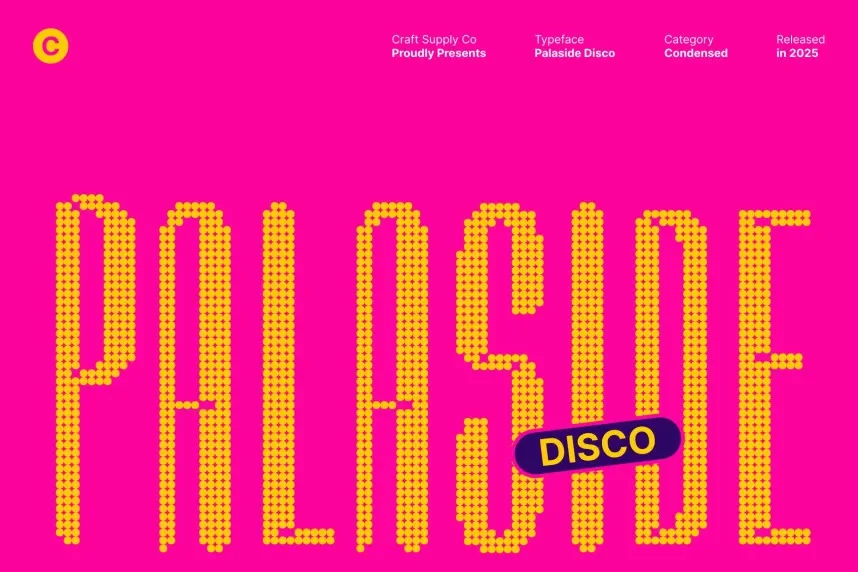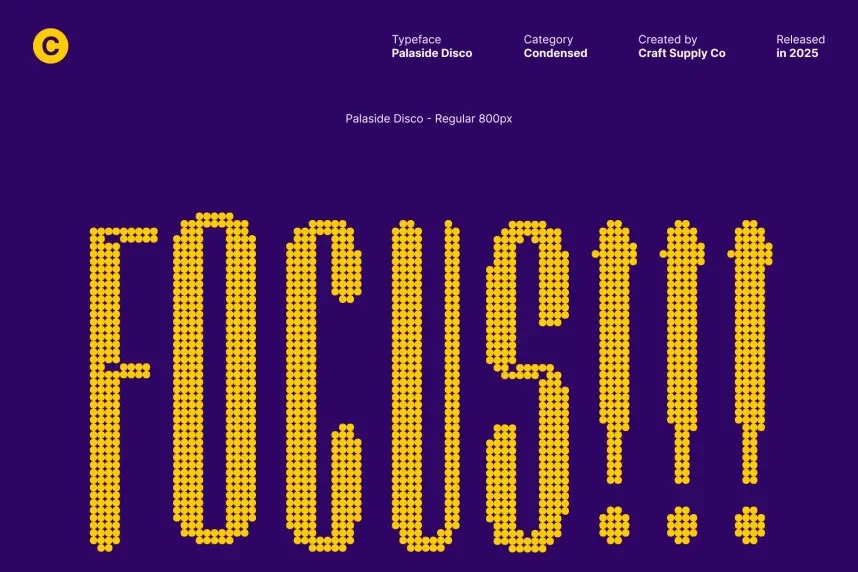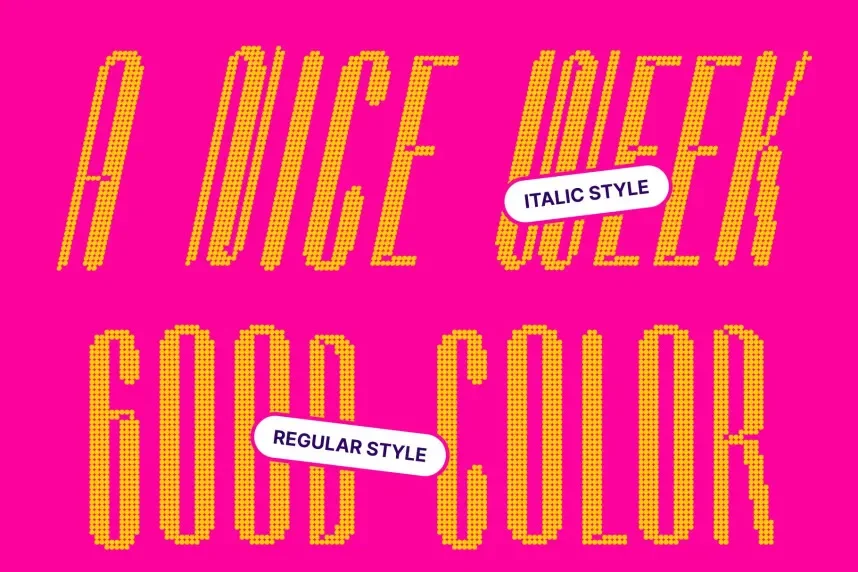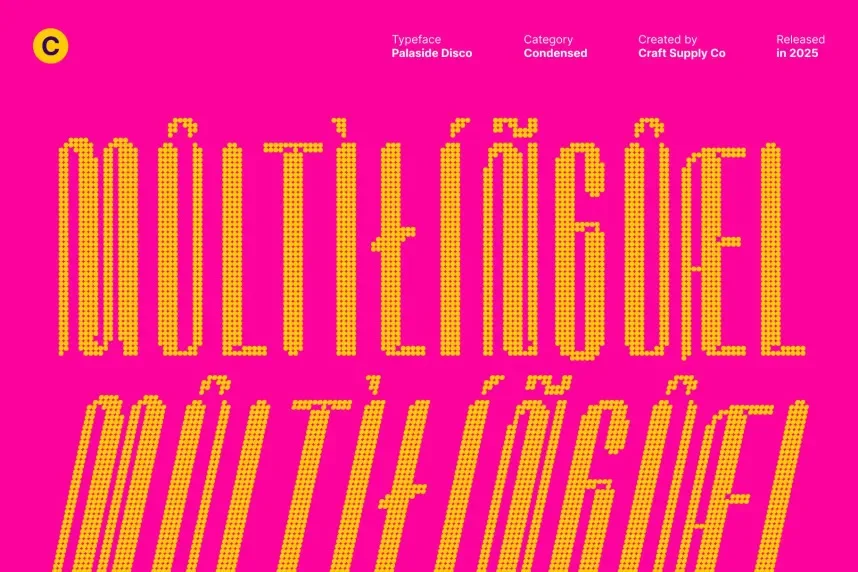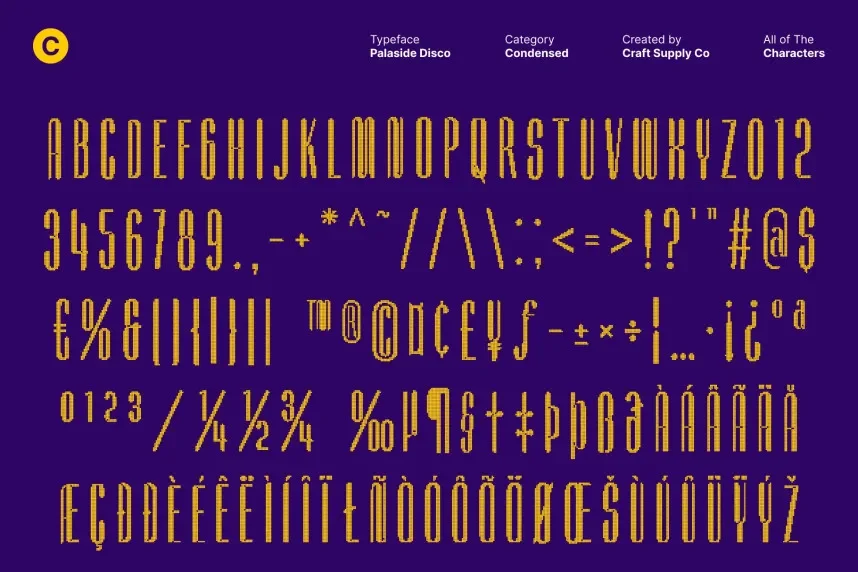
Palaside Disco Font is a bold, expressive display typeface with a touch of retro flair. Its dynamic design makes it ideal for creative projects such as music posters, event branding, and logos that require a high-energy, vintage look.